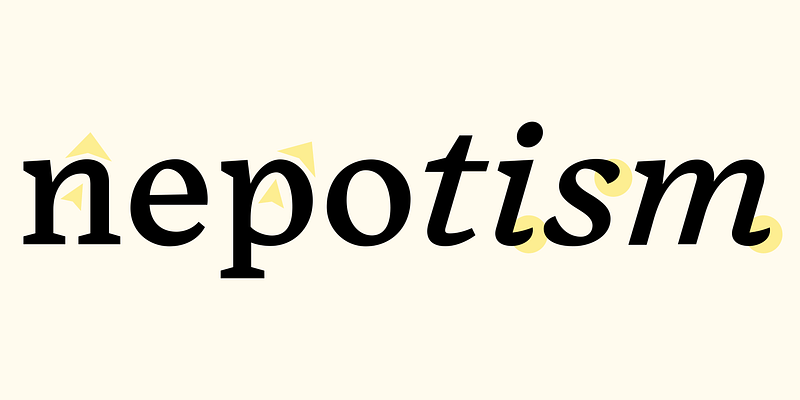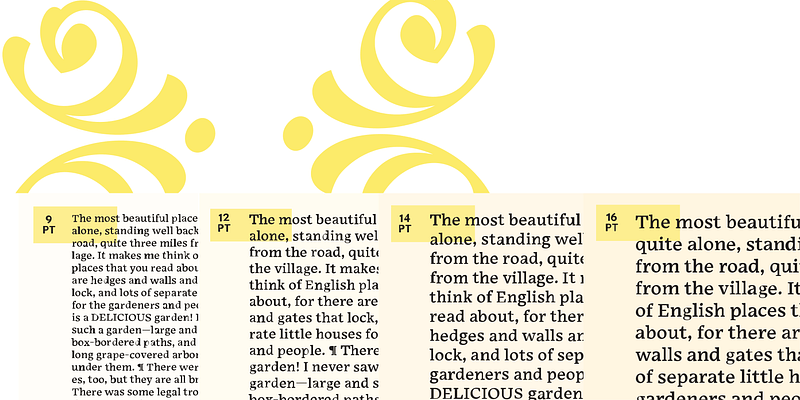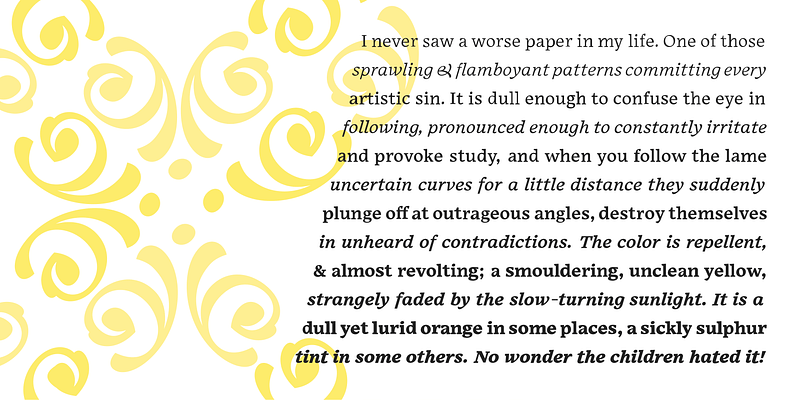
Victoria Rushton’s latest typeface was designed with lots of words in mind. Embury Text conveys warmth and Rushton’s unique point of view—she carefully considers how text faces communicate thoughts and feelings while contemplating design details. Contrasting characteristics like soft round curves, sharp end strokes, exaggerated oval counters, punched in slab-like serifs, and swelling swashes play subtly off of each other, offering an unexpectedly immersive experience to the reader. Embury Text is replete with OpenType features, including alternate forms, swash capitals, beautifully sturdy small caps, and ornaments for constructing borders evoking retro-modern style; Victoria Rushton 2016
Victoria Rushton
Victoria was trained as a type designer at Font Bureau, where she spends her days lovingly kerning, plotting and snacking. She went to RISD and studied illustration because she loved to draw, but turns out the main thing she wanted to draw was letters, and that’s how she finds herself here, writing this little blurb, and she’s really glad you’re here too.